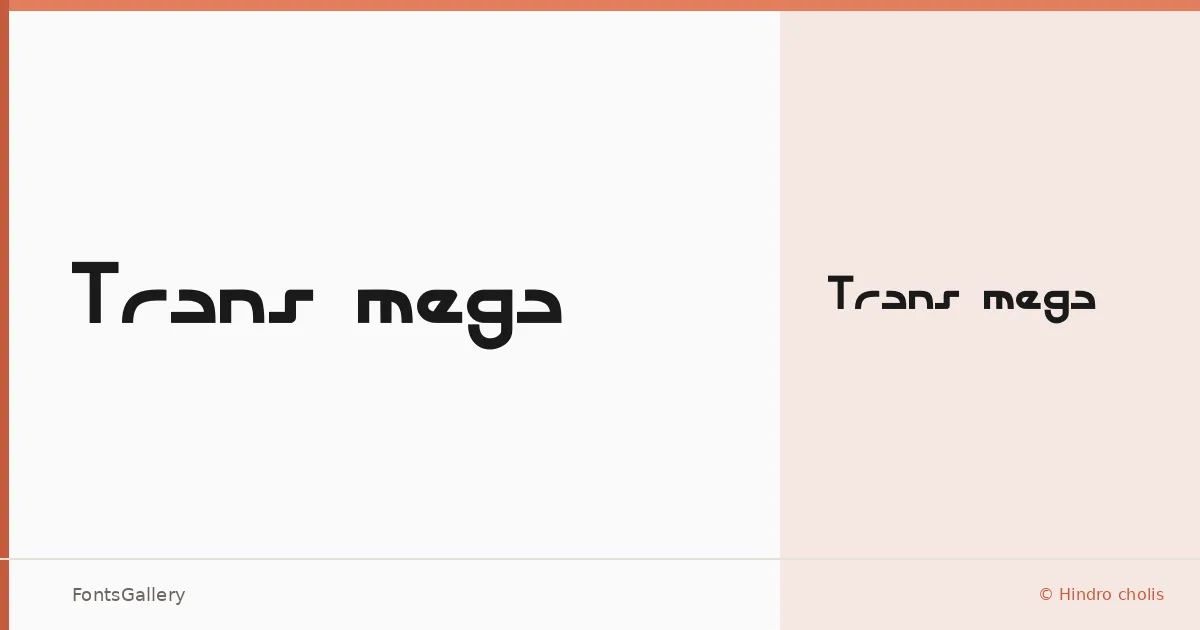
About Trans mega Font
There is a deliberate weight and forward momentum to these letterforms — something that reads as constructed rather than drawn, with a futuristic edge that feels intentional rather than decorative. The family was designed by Hindro cholis and is the work of Pidco.art, with copyright dating to 2020. It ships as a single Regular cut in OTF format, built with the kind of structural confidence that display work demands.
This is a display face with a bold, modern character — the sort of type that commands a headline rather than settles into one. The letterforms carry a futuristic quality, with forms that feel engineered and deliberate. As a single-weight OTF with Latin coverage, it is focused rather than sprawling, which keeps its personality consistent across every application.
It earns its keep in branding, poster design, logo lockups, and T-shirt graphics — anywhere a headline needs to hold its ground at large sizes. For text pairing, the family works alongside Helvetica for clean contrast, or with Aresink, Alexandria, Bizantheum, and Audex when the job calls for something closer in spirit.